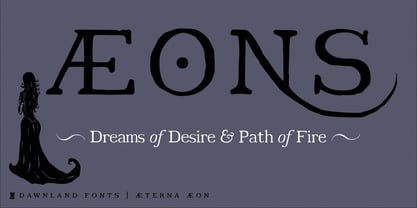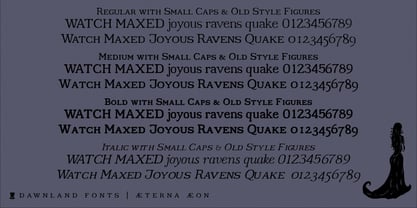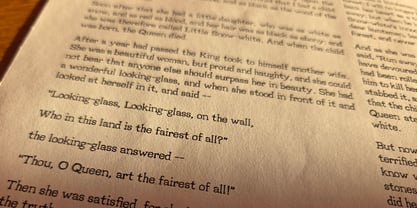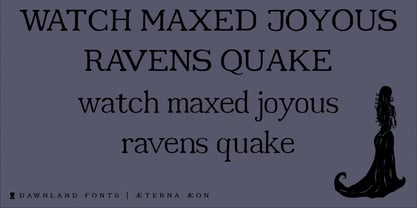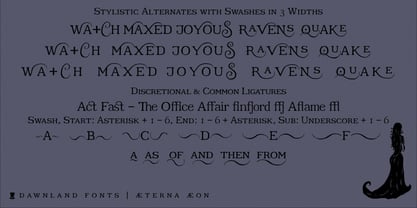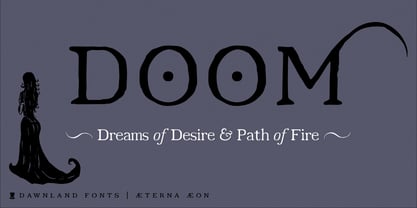
Aeterna Aeon
by Dawnland
The Aeterna Aeon Font Family was designed by Daniel Viberg and published by Dawnland. Aeterna Aeon contains 4 styles and family package options. More about this family
Aeterna Aeon: The Artisan's hand-drawn Antiqua Aeterna Aeon captures the visceral beauty of 16th-century printing. It is an "Inky Garamond" that embraces the organic bleed and weathered edges of metal type pressed into toothy paper. While the structure is rooted in history, the soul of the font lies in its massive collection of swashes and decorative alternates. Three-Width Swash System: Many capital letters feature multiple swash lengths, allowing you to choose the perfect amount of "flourish" for your layout. Intelligent Word-Ornaments: Includes unique, calligraphic underscores for common functional words like and, of, as, and then – perfect for vintage titling and book covers. Discretionary Ligatures: Beyond standard fi and fl, explore historical connections like ct, st, and ffj. Dynamic Decor: Use simple keyboard triggers (like ~A~ or *1) to access elegant start and end flourishes that frame your words in classic Renaissance style. Four Weights: Includes a unique Medium weight, designed to mimic the look of a heavy ink strike, alongside Regular, Bold, and a graceful Italic.
Designers: Daniel Viberg
Foundry: Dawnland